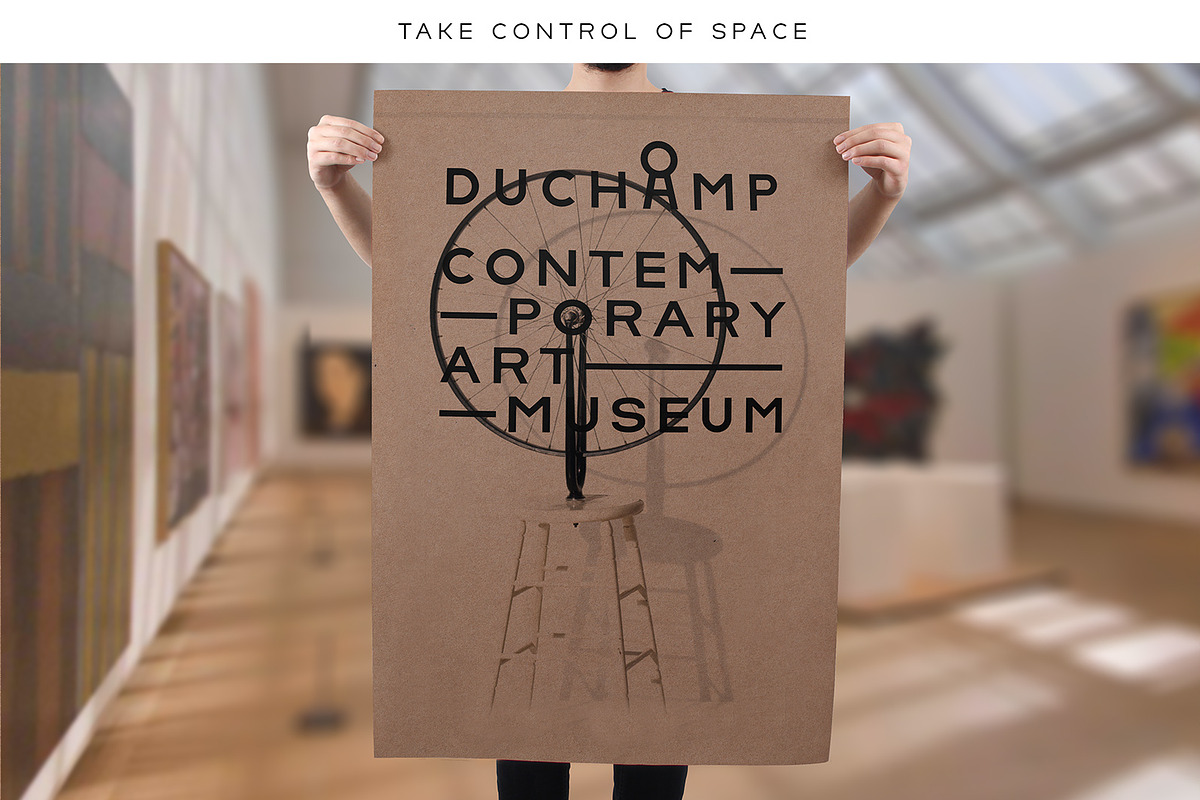
Lorano Family
Lorano, a contemporary typeface for modern needs!
- Strong, Geometric, Essential. A modern typeface inspired by Rationalism & Minimalism movements. Lorano letterforms and are great for user interfaces, logotypes, short text, magazines or track it out wide for a sophisticated look.
- Design: Pure geometries, Round right angles (1.40pt), Medium-large x-height, Slightly wider horizontal proportions.
- Weights: *13 weights and obliques - Range from Thin to ExtraBlack (26 Fonts)